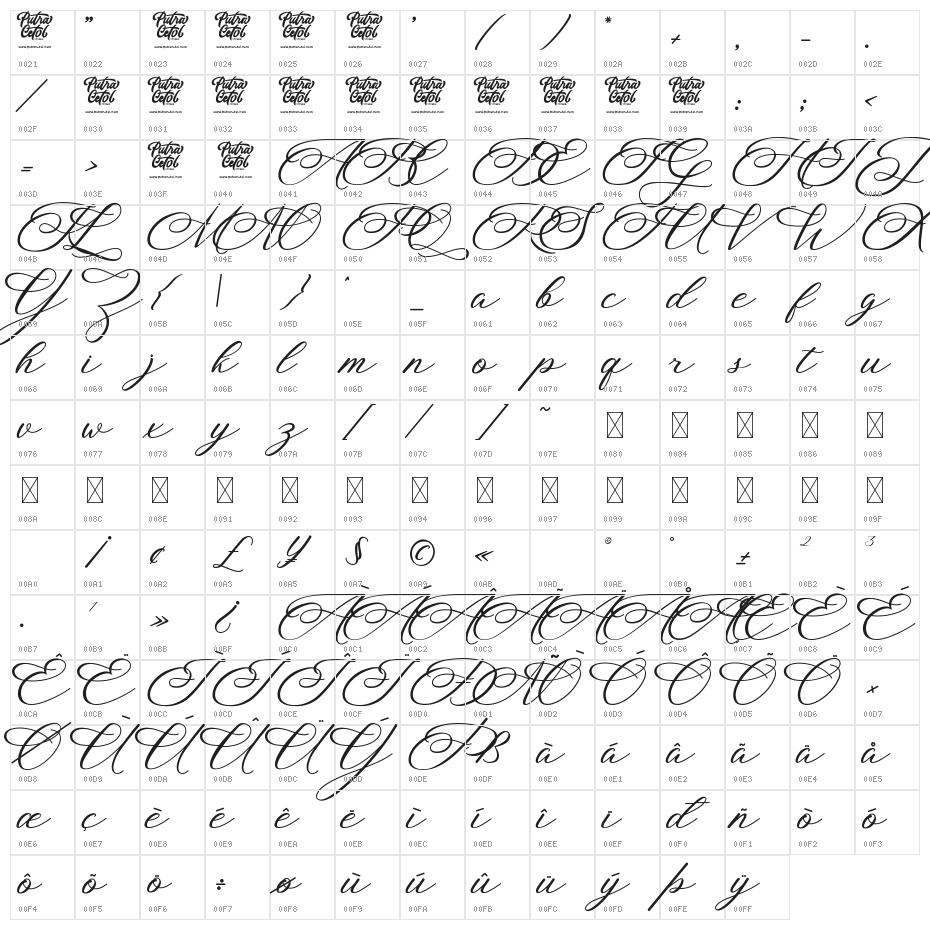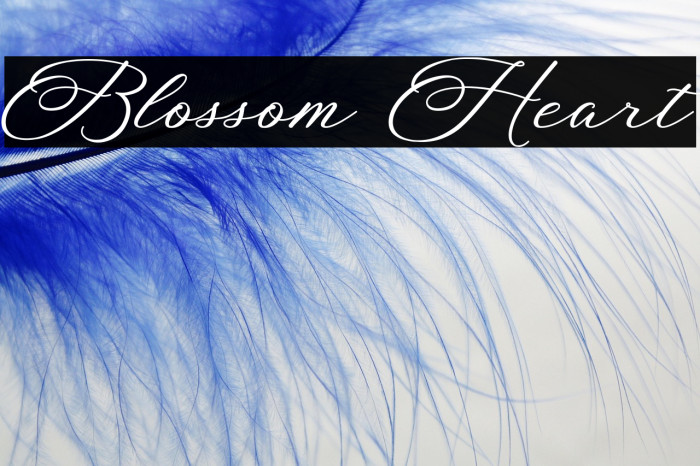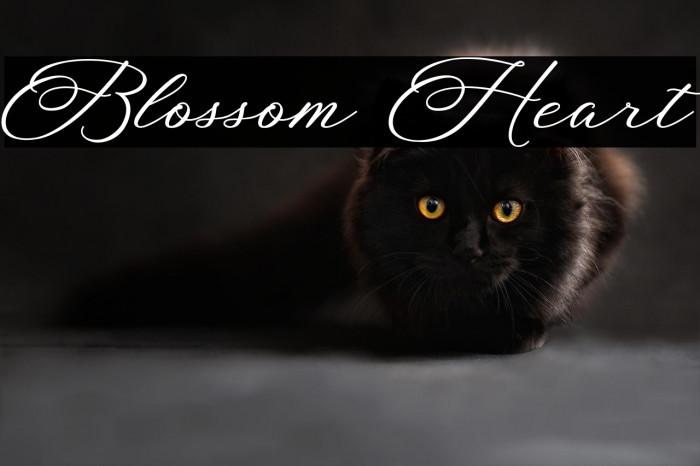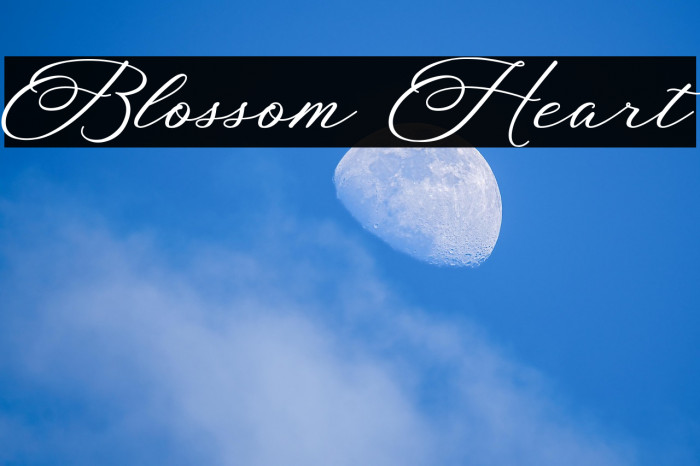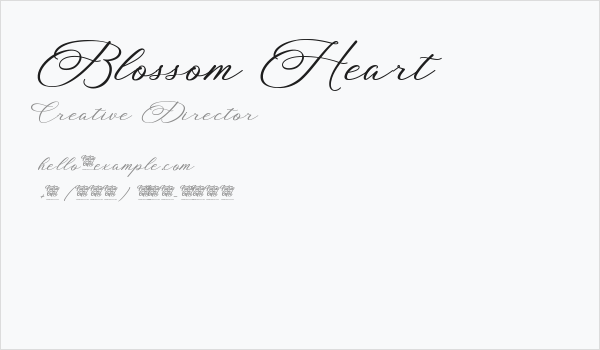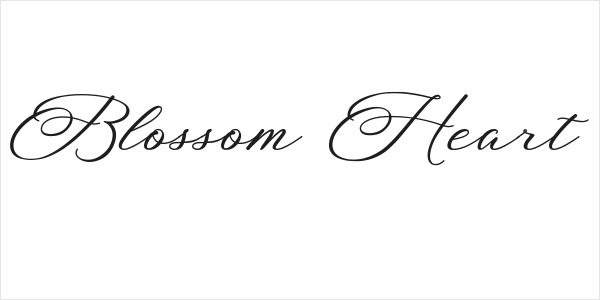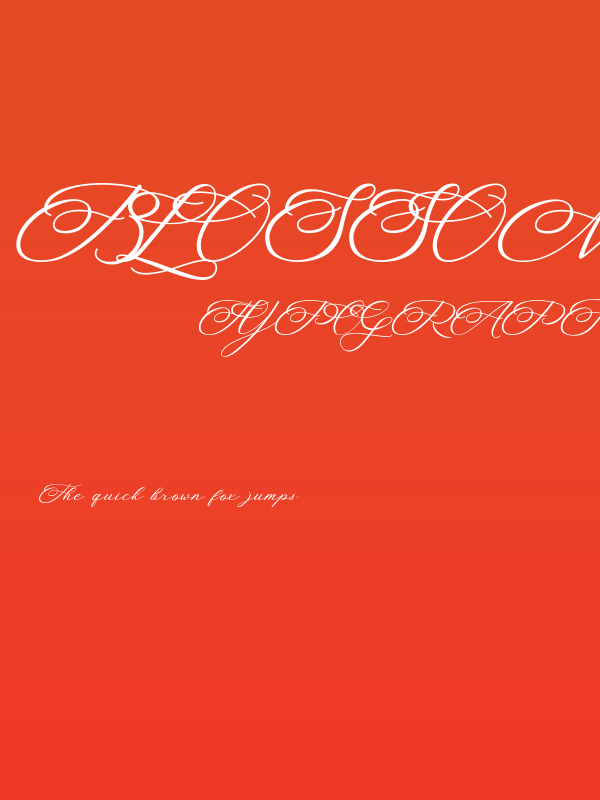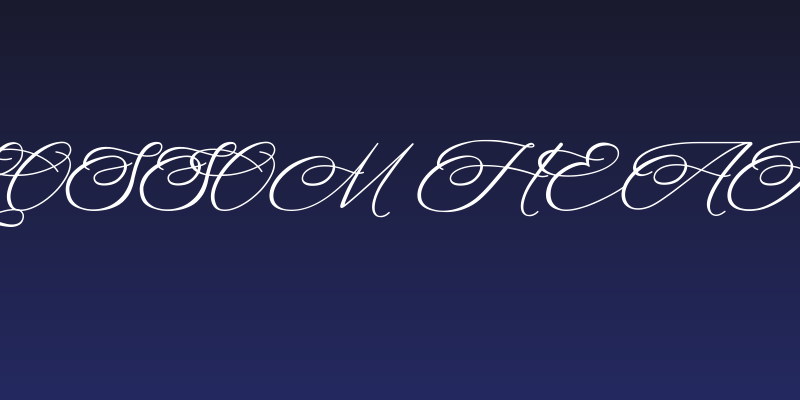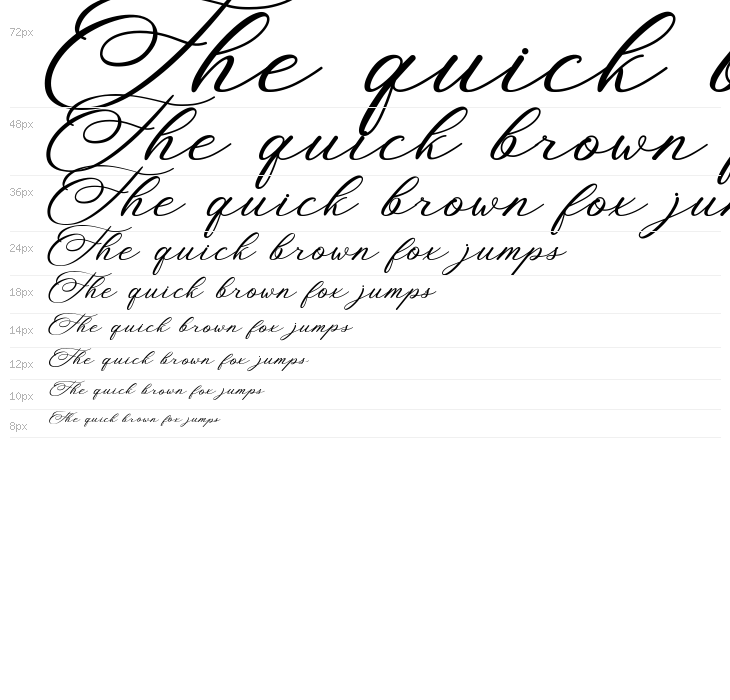
Blossom Heart Font
Blossom Heart Description
This elegant script font features a flowing, cursive style with intricate loops and swashes, giving it a romantic and sophisticated appearance. The uppercase letters are particularly ornate, with elaborate flourishes that add a touch of luxury and refinement. The lowercase letters maintain a consistent flow, enhancing readability while preserving the decorative nature of the font. The numerals and special characters are designed to complement the overall aesthetic, making this font ideal for projects that require a touch of elegance and charm.
| Overall Style | Romantic, Elegant |
| Use Case | Headlines, Invitations, Branding |
| Proposed Projects | Ideal for wedding invitations, greeting cards, branding, and luxury product packaging. |